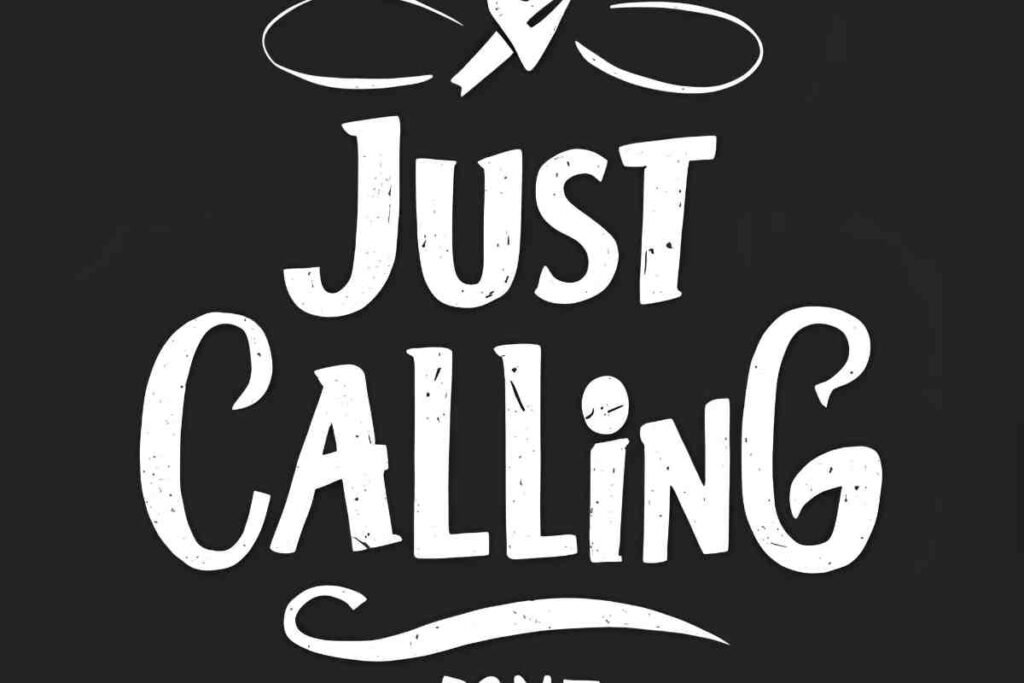
Looking for a stylish and elegant script font to elevate your designs? Just calling font free is a beautiful handwritten typeface, perfect for branding, social media, invitations and creative projects.
With its smooth curves and artistic strokes, this font adds a modern yet timeless touch to any design.
What is the Just Calling Font Free?
The Just Calling font is a visually stunning handwritten typography download that has captured the attention of designers, branding experts, and typography enthusiasts worldwide. Its elegant script font free style makes it an ideal choice for a variety of design projects, ranging from social media branding and website headers to logos and invitations.
As part of the modern script fonts collection, this font is distinguished by its fluid strokes, smooth curves, and natural handwritten aesthetic. Whether you are searching for a trendy script font online or exploring best cursive fonts, Just Calling is an excellent option that adds a touch of sophistication and uniqueness to any creative endeavor.
Best Script Fonts Like Just Calling
For those seeking Just Calling font alternatives, several fantastic options replicate its stylish and handwritten appeal. Dancing Script is a beautifully flowing script font that adds a sense of movement and elegance.
Great Vibes exudes a refined calligraphy style, ideal for invitations and formal branding. Sacramento balances a casual yet professional handwritten aesthetic, while Pacifico delivers a fun, retro script vibe perfect for lighthearted designs.
These fonts fall under the best cursive fonts online category and serve as excellent substitutes when looking for stylistic variety while maintaining a similar handcrafted charm.
Using Just Calling Font Free for Social Media & Branding
The Just Calling font has established itself as a favorite in social media marketing, branding materials, and promotional content. Its beautiful handwriting font free design captures attention, making it a powerful tool for creating visually appealing content.
Many brands incorporate this font in logos, business cards, website banners, and advertisements to establish a unique identity. The font’s versatility makes it suitable for various platforms, including Instagram, Facebook, and YouTube graphics.
To maximize its impact, it is recommended to pair the Just Calling font for branding with complementary typography, color palettes, and strategic spacing to enhance readability and design consistency.
What makes Just calling font free unique?
Its stylish script design and beautiful handwriting font free aesthetic set it apart.